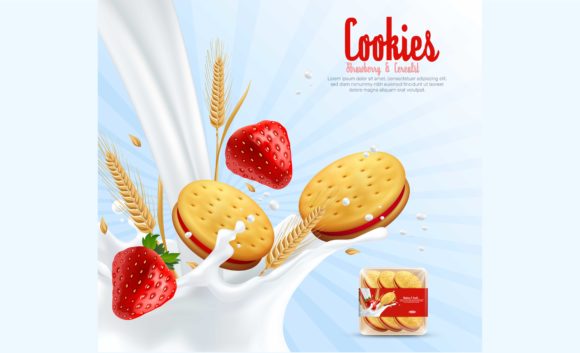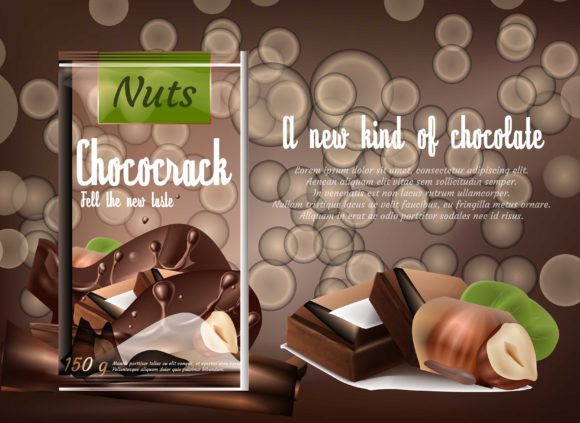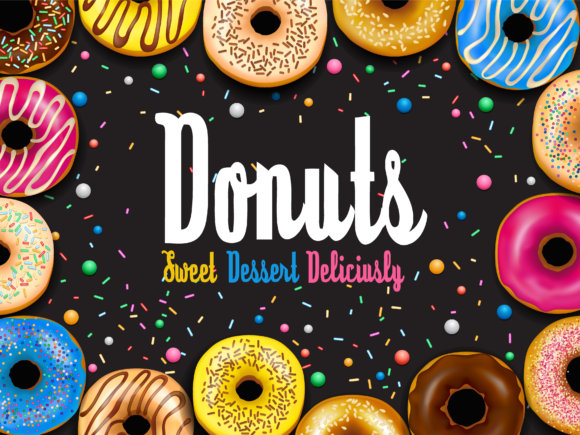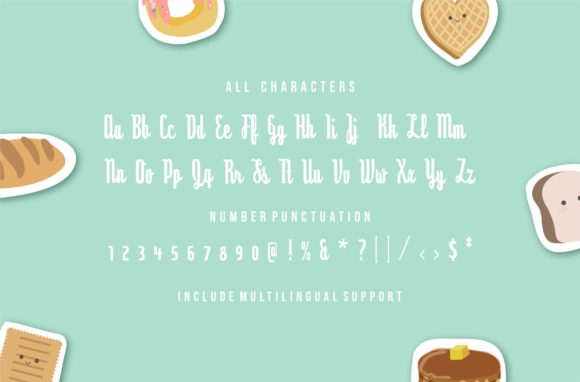
Crackers Font: A Bold Handwritten Font for Your Creative Projects
Are you looking for a font that adds a touch of casual charm to your designs? Look no further than Crackers Font, a bold handwritten font that’s perfect for a wide range of creative projects. In this article, we’ll take a closer look at what makes Crackers Font so special and how you can use it to elevate your designs.
What is Crackers Font?
Crackers Font is a bold handwritten font that’s been carefully handcrafted to become a true favorite among designers and crafters. Its unique blend of casual charm and readability makes it an incredibly versatile font that’s perfect for use in a variety of contexts. Whether you’re looking to create a standout headline or add some personality to a busy background, Crackers Font is the perfect choice.
The Characteristics of Crackers Font
So, what sets Crackers Font apart from other fonts? Here are just a few of its key characteristics:
- Bold and Handwritten: Crackers Font is a bold handwritten font that’s perfect for making a statement. Its thick, expressive lines give it a confident and eye-catching feel that’s hard to ignore.
- Casual Charm: Despite its boldness, Crackers Font has a casual, down-to-earth feel that’s perfect for designs that need a touch of personality. It’s a font that feels approachable and friendly, making it perfect for use in a wide range of creative projects.
- Readability: One of the standout features of Crackers Font is its readability. Even at smaller sizes, the font remains clear and easy to read, making it perfect for use in body text or captions.
- Versatility: Perhaps the greatest strength of Crackers Font is its versatility. It can be used in a wide range of contexts, from standalone headlines to busy backgrounds, and still look amazing.
How to Use Crackers Font in Your Designs
So, how can you use Crackers Font in your designs? Here are a few ideas to get you started:
- Headlines: Use Crackers Font as a standalone headline to add a touch of personality to your designs. Its bold, eye-catching lines make it perfect for grabbing attention and drawing the reader in.
- Body Text: Despite its boldness, Crackers Font is also readable enough to use in body text. Try using it for short paragraphs or captions to add a touch of personality to your designs.
- Backgrounds: Crackers Font looks amazing on busy backgrounds, where its bold lines and casual charm can really shine. Try using it to add a title or heading to a background image or texture.
- Branding: Crackers Font is also perfect for use in branding and logo design. Its unique blend of boldness and casual charm makes it a great choice for creating a memorable and eye-catching brand identity.
Tips for Getting the Most Out of Crackers Font
Here are a few tips for getting the most out of Crackers Font:
- Experiment with Sizes: Don’t be afraid to experiment with different sizes and scales when using Crackers Font. Its bold lines and casual charm make it perfect for use at a wide range of sizes, from large headlines to smaller captions.
- Play with Colors: Crackers Font looks amazing in a wide range of colors, so don’t be afraid to experiment and find the perfect hue for your design. Try using it in bright, bold colors to really make it stand out.
- Mix and Match: Crackers Font is a versatile font that can be paired with a wide range of other fonts and design elements. Try mixing and matching it with other fonts, textures, and backgrounds to create a unique and eye-catching design.
| Author | DJ Creative |
Crackers Font is a bold handwritten font that’s perfect for designers and crafters looking to add a touch of casual charm to their designs. Its unique blend of boldness, readability, and versatility makes it an incredibly versatile font that’s perfect for use in a wide range of creative projects. Whether you’re looking to create a standout headline, add some personality to a busy background, or create a memorable brand identity, Crackers Font is the perfect choice.